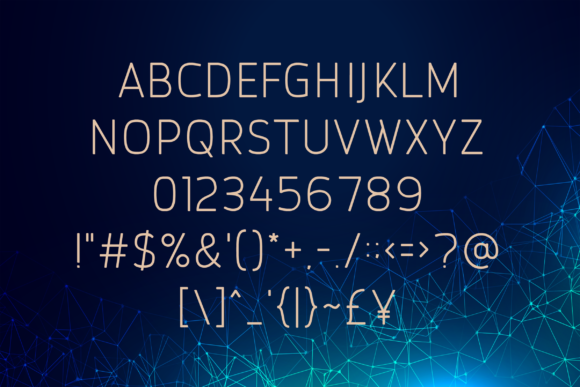
Introduction to Browncode Light Font
Browncode Light is a wonderfully stylish and elegant sans serif font with perfectly balanced letters.
Use it to deliver any message with clarity, style, and absolute readability .
Key Features of Browncode Light Font
Why Choose Browncode Light Font?